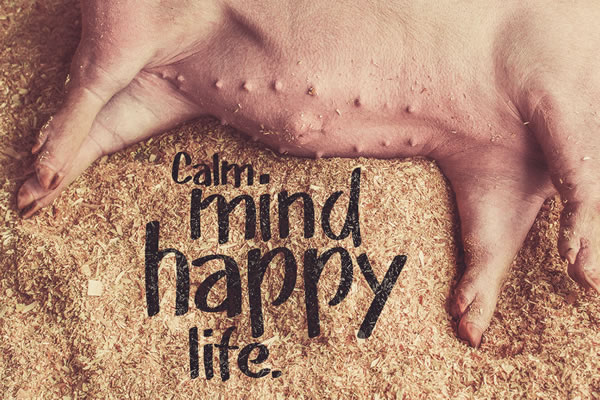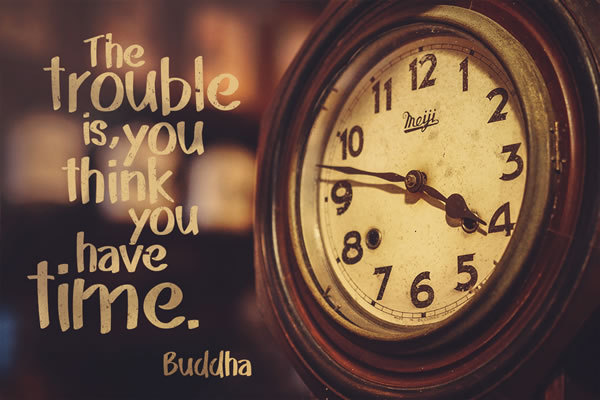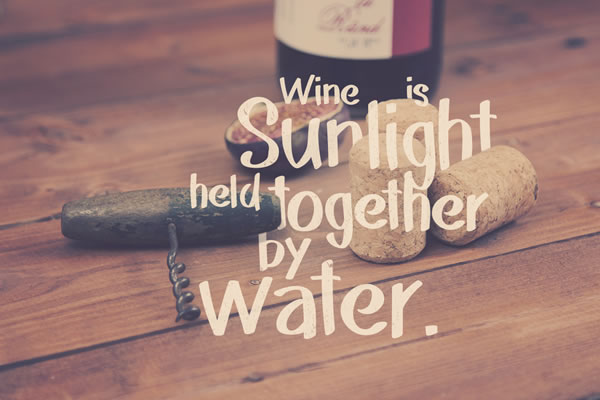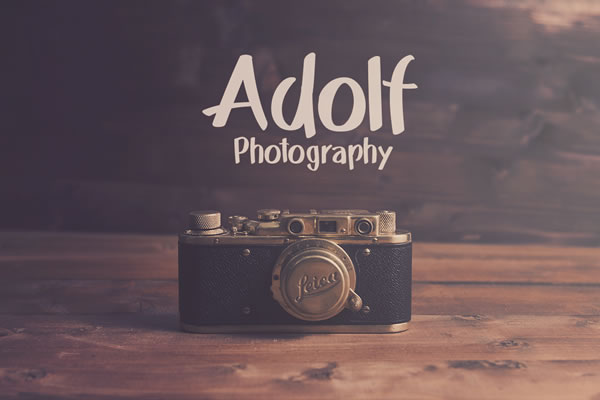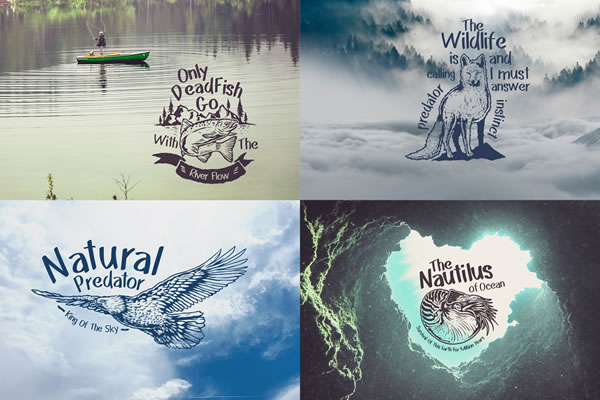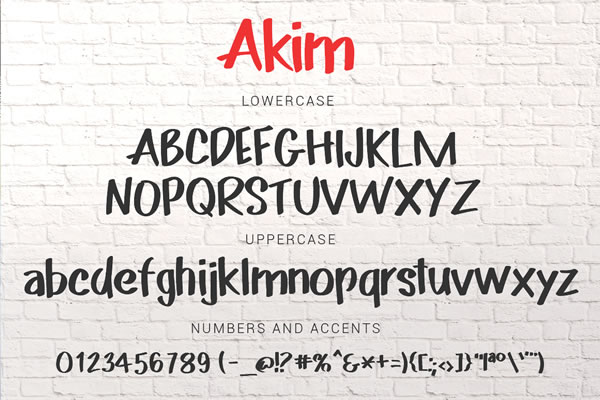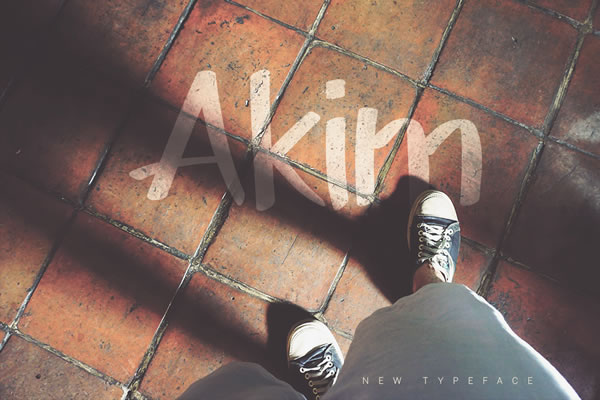
Akim Font: A Playful Typeface for Creative Minds
Akim is a playful font created by Pere Esquerrà, a talented designer with a passion for crafting unique and engaging typefaces. The Akim font is a modern sans-serif font that exudes a sense of fun and playfulness, making it perfect for designers and crafters looking to add a touch of personality to their projects.
The Story Behind Akim Font
Pere Esquerrà, the mastermind behind Akim font, is a Spanish designer with a keen eye for detail and a love for experimentation. With a background in graphic design and typography, Esquerrà set out to create a font that would be both functional and visually appealing. The result is Akim, a font that is both modern and approachable.
Key Features of Akim Font
Akim font boasts a range of features that make it an excellent choice for designers and crafters. Some of its key features include:
- Playful and Modern Design: Akim font has a unique and playful design that is sure to grab attention. Its modern sans-serif style makes it perfect for a wide range of projects, from digital media to print materials.
- Highly Legible: Despite its playful design, Akim font is highly legible, making it suitable for use in body text and other long-form content.
- Support for Multiple Languages: Akim font supports multiple languages, including English, Spanish, French, and many others.
- OpenType Features: Akim font includes OpenType features, such as ligatures and stylistic alternates, which allow designers to add an extra layer of creativity to their work.
Uses of Akim Font
Akim font is a versatile typeface that can be used in a wide range of projects, including:
- Digital Media: Akim font is perfect for use in digital media, such as websites, social media graphics, and email marketing campaigns.
- Print Materials: Its highly legible design makes Akim font suitable for use in print materials, such as brochures, flyers, and posters.
- Branding and Identity: Akim font’s unique and playful design makes it an excellent choice for branding and identity projects, such as logos and business cards.
- Crafting and DIY Projects: Akim font’s fun and playful design makes it perfect for use in crafting and DIY projects, such as handmade cards and scrapbooking.
Tips for Using Akim Font
To get the most out of Akim font, here are a few tips to keep in mind:
- Use it with a Bold Font: Akim font pairs well with bold fonts, which can help to create a striking contrast and add visual interest to your design.
- Experiment with Colors: Akim font’s playful design makes it perfect for use with bright and bold colors.
- Don’t be Afraid to Get Creative: Akim font’s OpenType features and stylistic alternates make it easy to get creative and experiment with different design options.
Akim font is a playful and modern typeface that is perfect for designers and crafters looking to add a touch of personality to their projects. With its highly legible design, support for multiple languages, and OpenType features, Akim font is a versatile typeface that can be used in a wide range of projects. Whether you’re working on a digital media project, a print material, or a crafting and DIY project, Akim font is sure to bring a smile to your face and a touch of whimsy to your design.
About Pere Esquerrà
Pere Esquerrà is a Spanish designer with a passion for typography and graphic design. With a background in design and a love for experimentation, Esquerrà is always pushing the boundaries of what is possible with typefaces. Akim font is just one example of his creative and innovative approach to design.